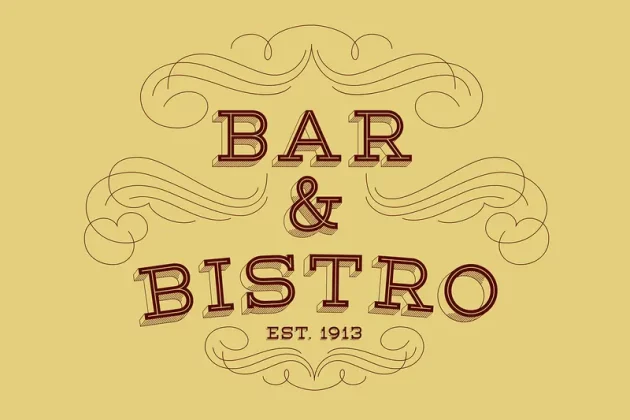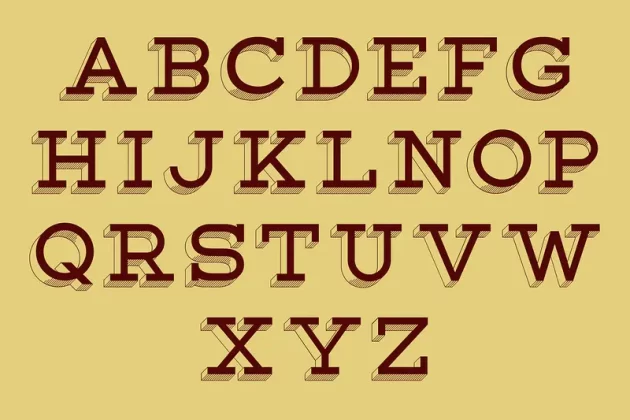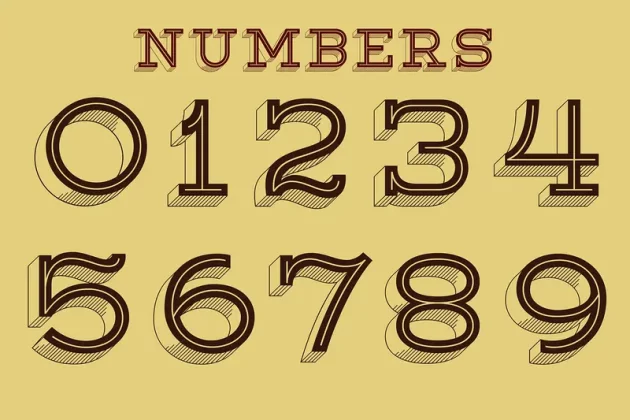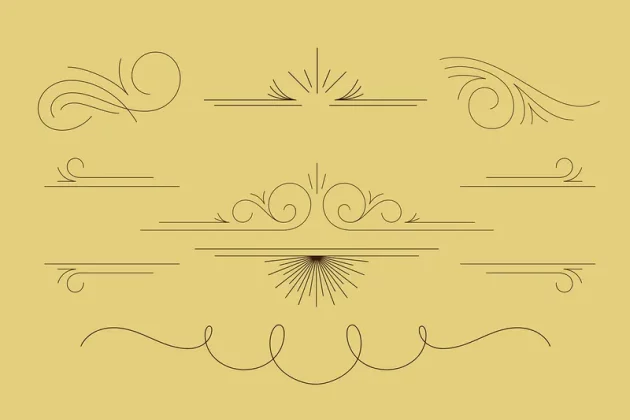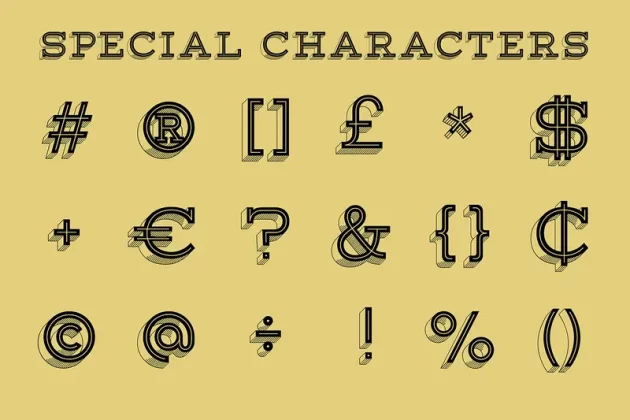
Lastra Font
About Lastra Font
Say hello (again) to Lastra! Ideal for for the neighborhood cafe and/or restaurant. This updated version of Lastra looks even more delicious. This beautiful font comes only in capital letters (perfect if you want to make a statement). It also comes equipped with numbers along with a well stocked supply of special characters. Equipped with 5 complimentary styles and a variety of custom flourish glyphs you will be attracting new customers in no time.
Features
5 Styles
Uppercase
Numbers
Select punctuation marks
European special characters
Special flourish characters